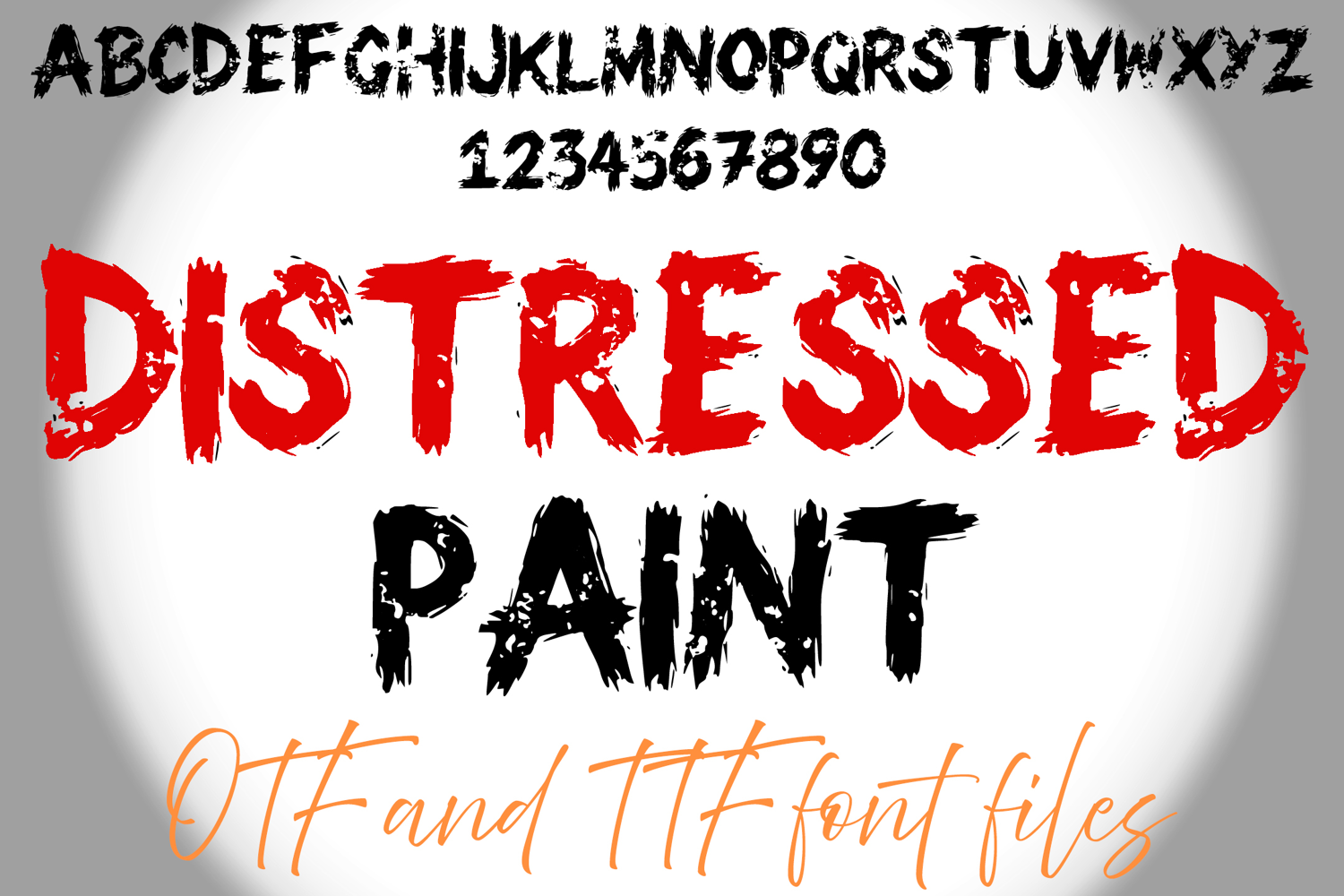
Distressed Paint Lettering ABC Text Font Alphabet OTF Type IllustrationÂ
A brush paint style font where you can create your own words and colour them to your vision!